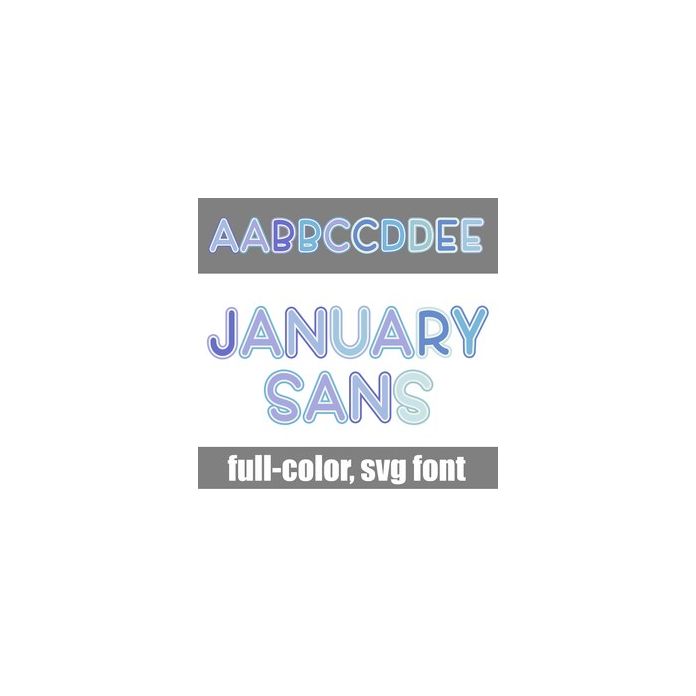
This full-color font features a sans serif font in a winter color palette. There is an alt case w/ additional colors you can access through your system or Silhouette's glyph map.